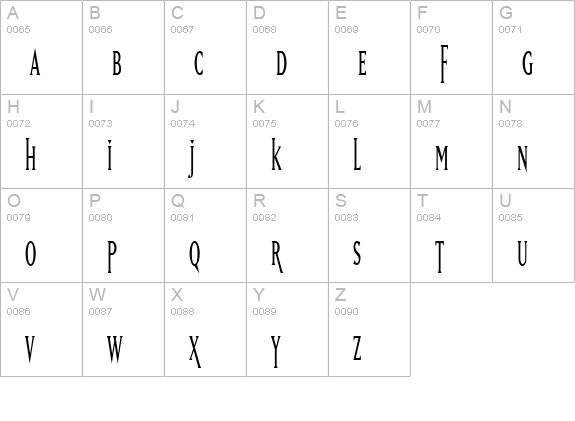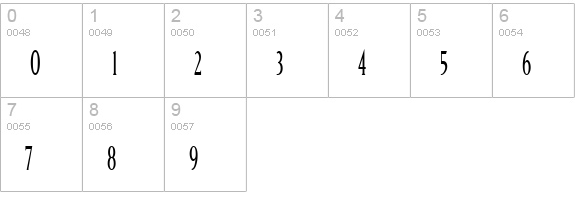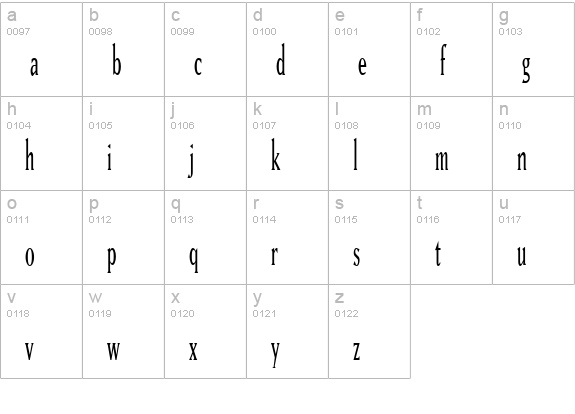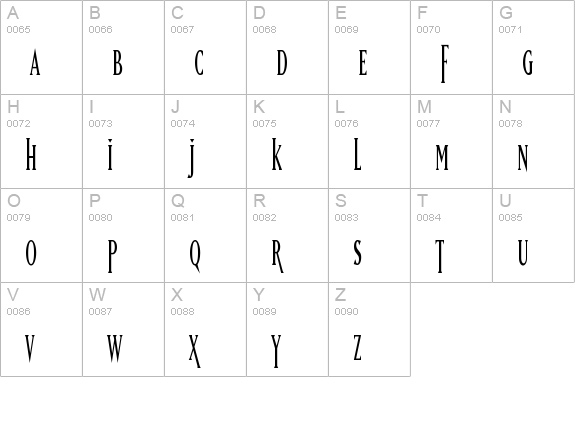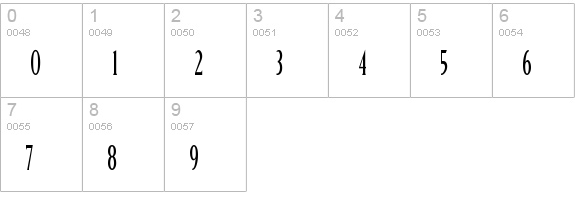
MatrixTallLining Regular is the standard, neutral variant in the MatrixTallLining typeface family \xE2\x80\x94 well suited to general body text, paragraphs, and standard typographic work.
MatrixTallLining Regular is a modern and sleek font that exudes elegance and sophistication. With its tall and slender letterforms, this typeface is perfect for adding a touch of refinement to any design project. The clean lines and balanced proportions of MatrixTallLining Regular make it versatile and suitable for a wide range of applications, from branding to editorial design. Best of all, MatrixTallLining Regular is available for free download at FontsMarket.com. This means that you can easily access this stylish font and incorporate it into your projects without any cost. Whether you're working on a professional presentation or a creative branding campaign, MatrixTallLining Regular will elevate your design and give it a polished and modern look. Download this font today and see how it can enhance your work!